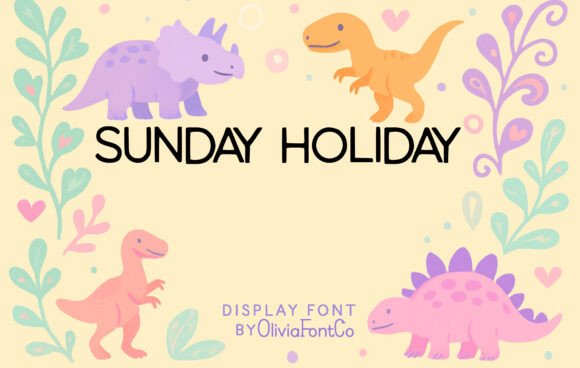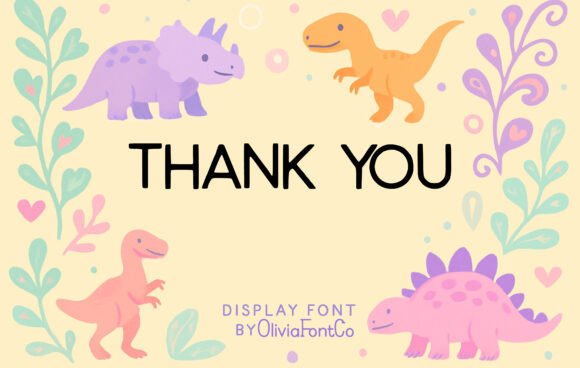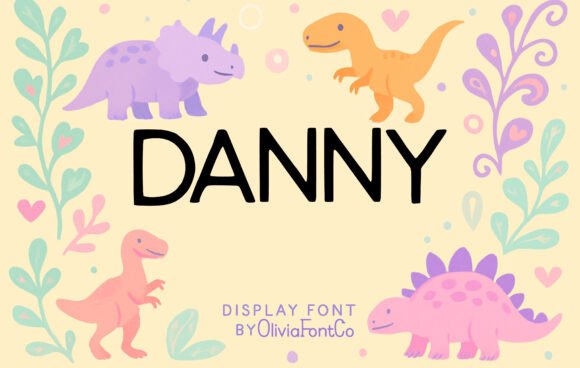
Danny Font: Elevate Your Creative Projects with Style and Legibility
In the world of typography, a font can make all the difference in bringing your creative vision to life. If you’re a designer, crafter, or simply someone who loves to dabble in creative projects, you’re likely always on the lookout for the perfect font to elevate your work. That’s where Danny Font comes in – a versatile and stylish font designed to take your creative ideas to new heights.
A Font Designed for Creativity
Danny Font is crafted with the intention of being a true favorite among designers and crafters. Its design focuses on legibility and aesthetic appeal, making it an excellent choice for a wide range of applications. Whether you’re working on magazine headlines, t-shirts, social media graphics, branding materials, wedding invitations, or cards, Danny Font is the perfect companion to help your creative projects stand out.
Legible and Versatile
One of the key features of Danny Font is its exceptional legibility. This font is designed to look great not just as a title, but also as body text. This versatility is crucial for designers who need a font that can seamlessly transition from headings to paragraphs without sacrificing readability or style. The clear and clean lines of Danny Font ensure that your message is conveyed effectively, making it an ideal choice for both digital and print media.
The possibilities are endless with Danny Font. Here are a few ideas to get you started:
- Magazine Headlines: Create eye-catching titles that draw readers in with Danny Font’s unique style.
- T-Shirts and Apparel: Design custom apparel that stands out with a font that’s both stylish and legible.
- Social Media Graphics: Elevate your social media presence with graphics that incorporate Danny Font for a professional look.
- Branding: Develop a strong brand identity with a font that communicates your message clearly and effectively.
- Wedding Invitations and Cards: Add a touch of elegance and sophistication to your wedding invitations, greeting cards, and more.
Why Choose Danny Font?
There are countless fonts available, but Danny Font stands out for several reasons:
- Unique Style: Danny Font offers a distinctive look that can help your projects stand out from the crowd.
- High Legibility: Its clear design ensures that your text is easy to read, even at smaller sizes.
- Versatility: Use Danny Font across various platforms and mediums, from digital displays to print materials.
- Creative Freedom: With Danny Font, you have the flexibility to experiment with different designs and creative ideas.
Danny Font is more than just a typeface – it’s a tool for creative expression. Its combination of style, legibility, and versatility makes it an invaluable asset for designers and crafters looking to elevate their projects. Whether you’re working on a commercial project or a personal endeavor, Danny Font has the potential to take your creative ideas to the highest level. So why wait? Explore the possibilities with Danny Font today and discover how it can transform your creative work.